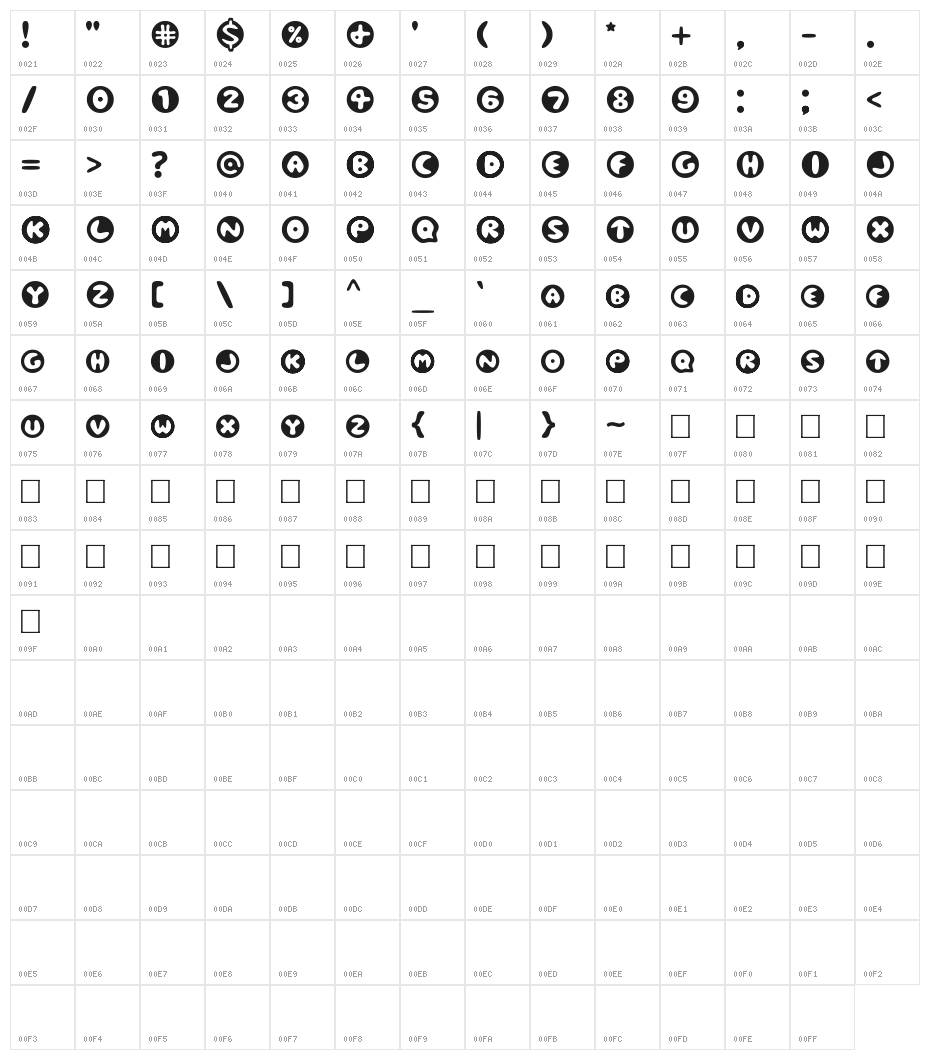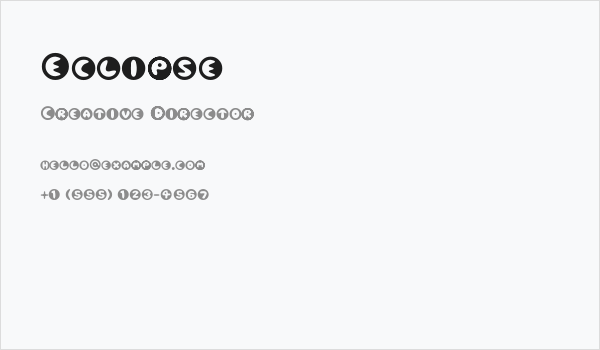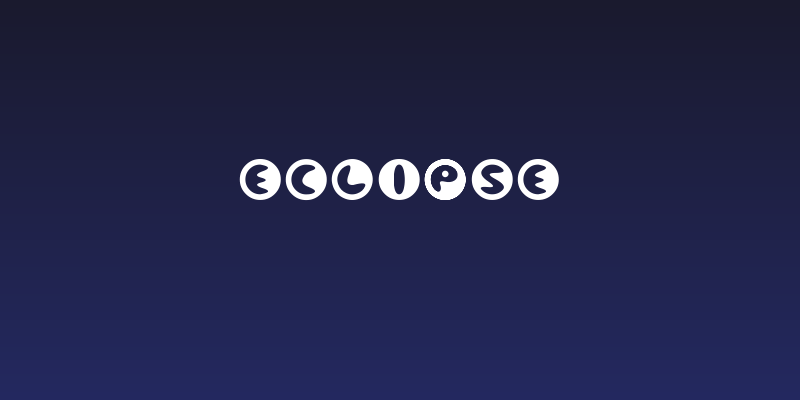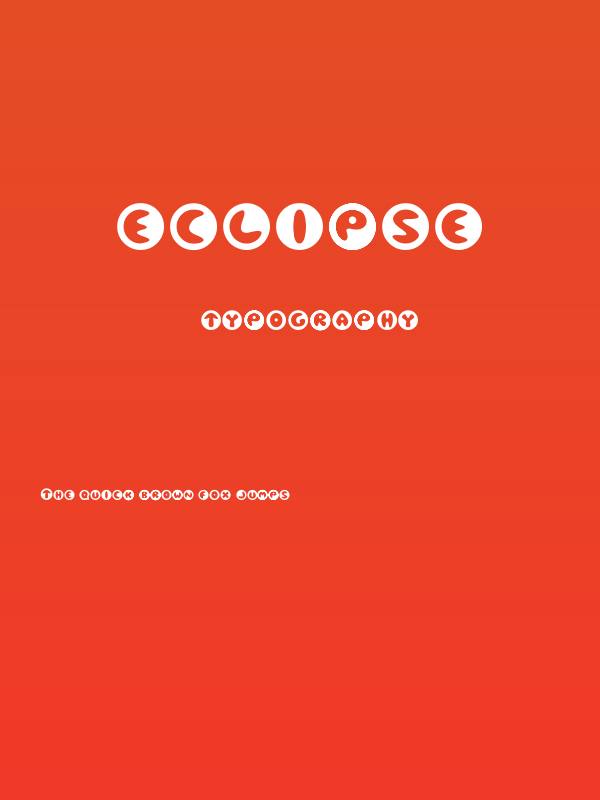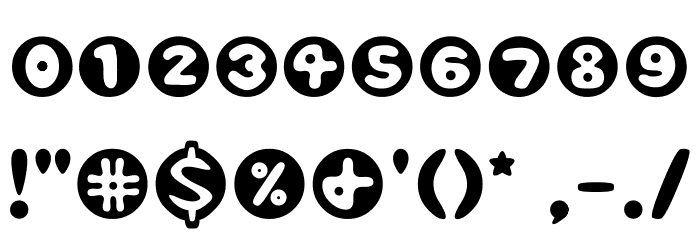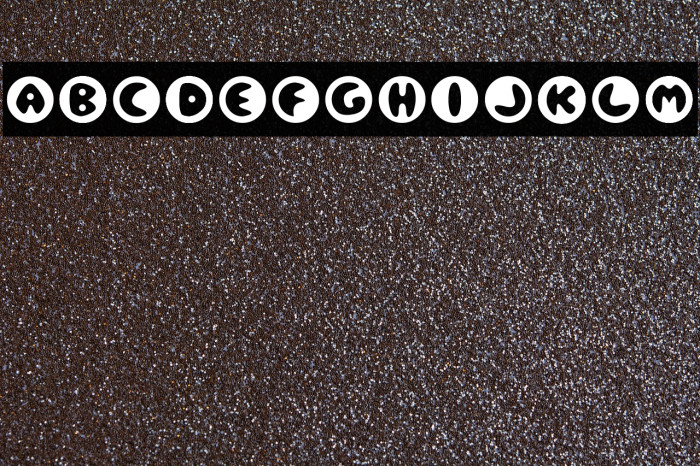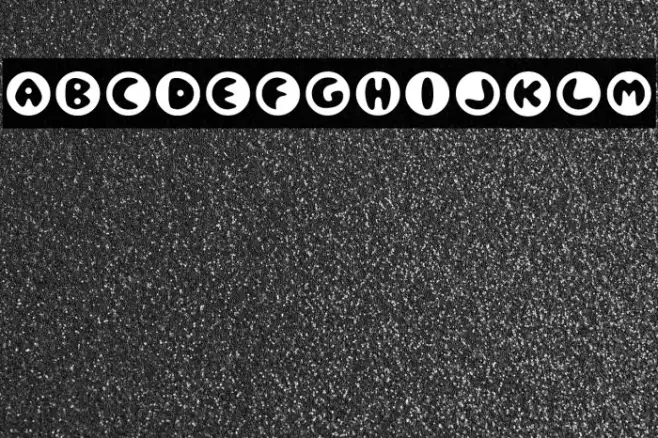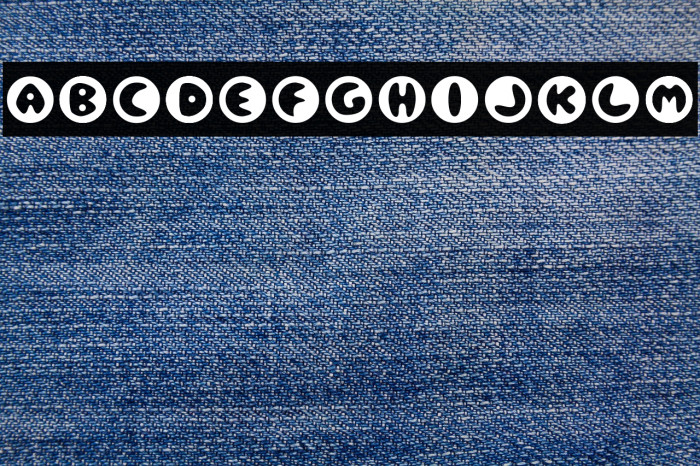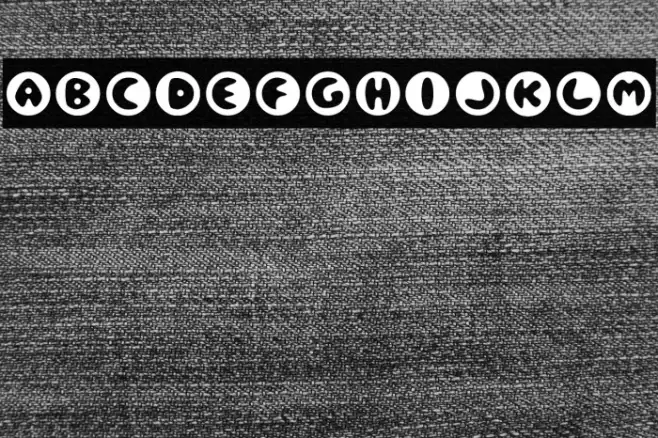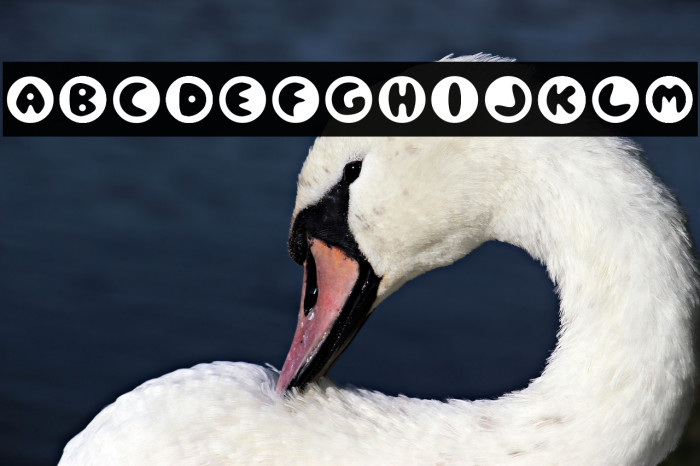
Eclipse Font
Eclipse Description
This font features bold, circular characters with a playful and modern design. Each letter and number is encapsulated within a solid circle, creating a unique and eye-catching effect. The characters are evenly spaced within their circular boundaries, providing a consistent and cohesive look. The style is reminiscent of a lunar eclipse, with the dark circles highlighting the white space of each character. This design is both decorative and functional, making it suitable for various creative applications.
| Proposed Projects | Ideal for children's books, playful branding, event posters, and creative digital content. |